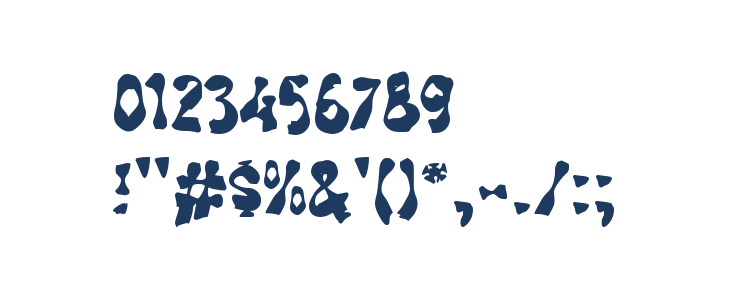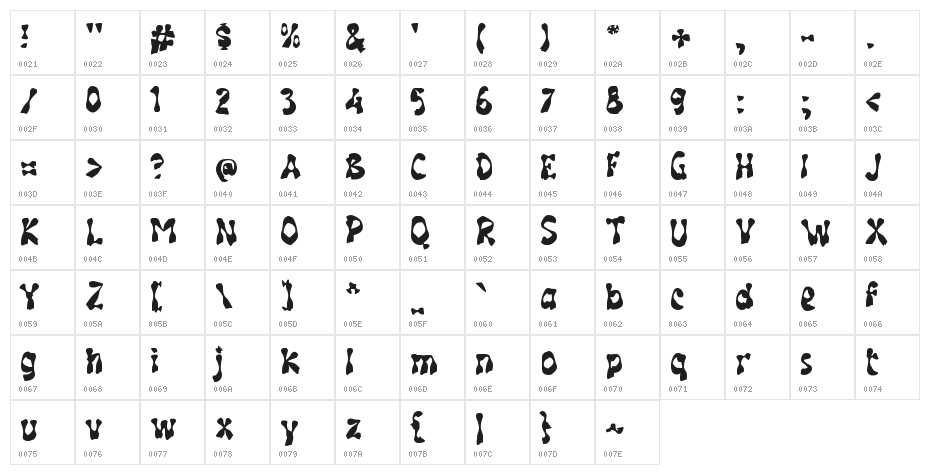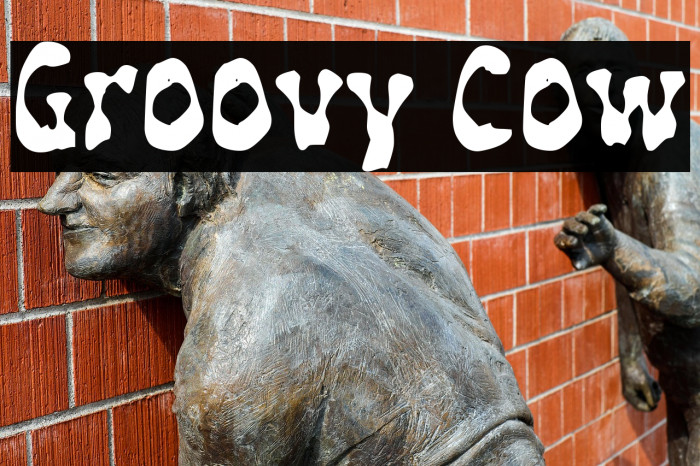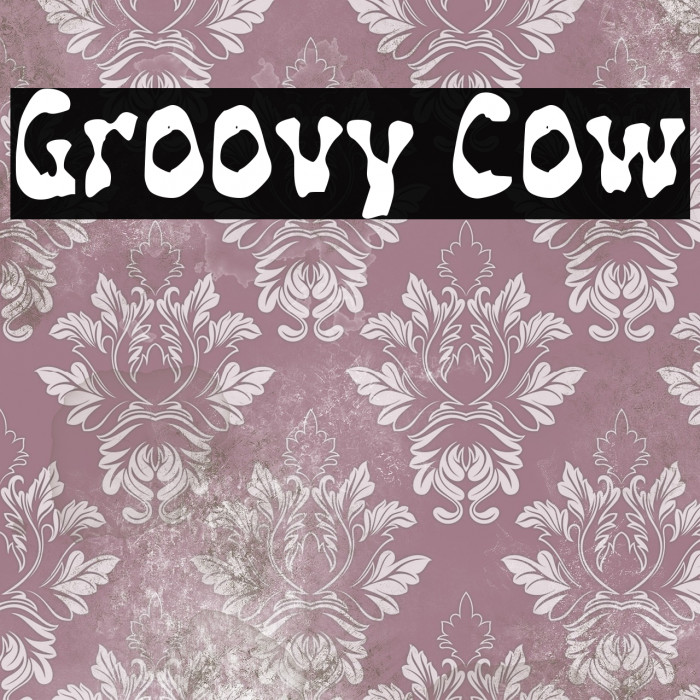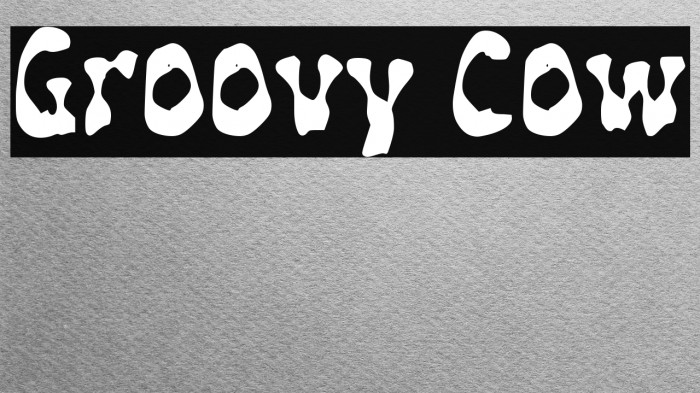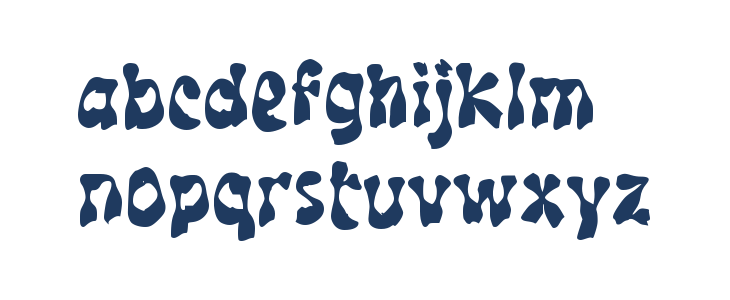
Groovy Cow Font
Groovy Cow Description
This font features a playful and bold design with a distinctly irregular and organic shape. The characters are reminiscent of a hand-drawn style, with each letter exhibiting unique curves and edges that create a dynamic and lively appearance. The font's thick strokes and uneven lines give it a whimsical and artistic feel, making it stand out in any design. The uppercase and lowercase letters maintain a consistent style, while the numerals and special characters complement the overall aesthetic. This font is perfect for projects that require a fun and eye-catching typeface.
| Overall Style | Whimsical, Artistic |
| Proposed Projects | Ideal for children's books, posters, branding for creative businesses, and playful event invitations. |